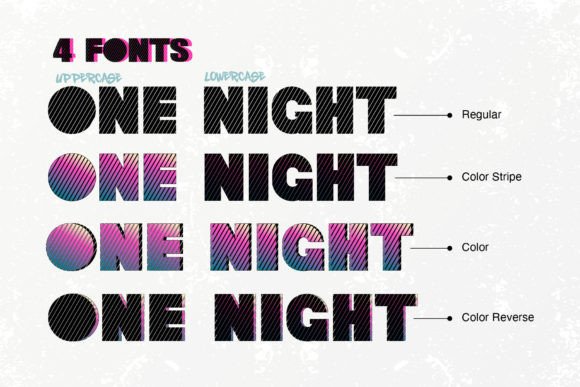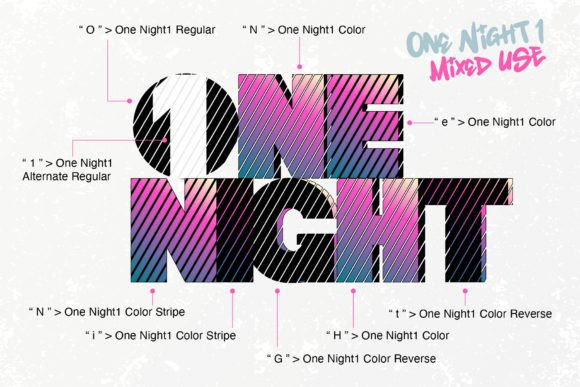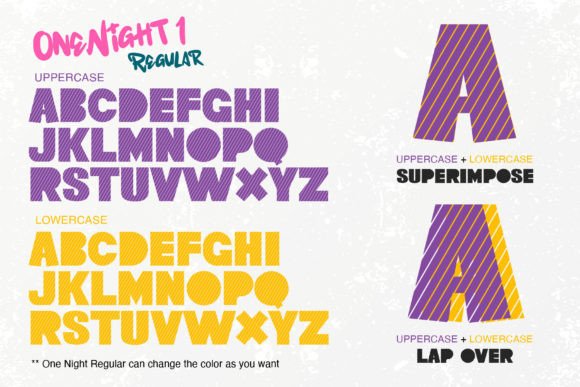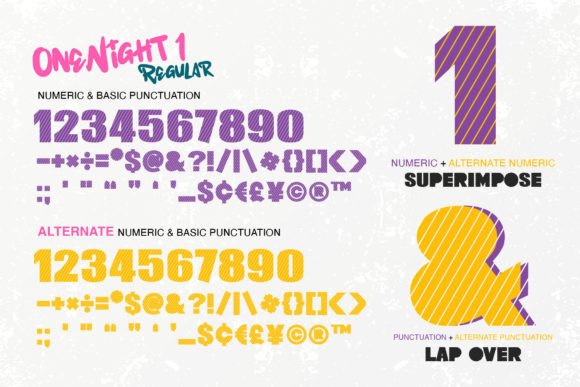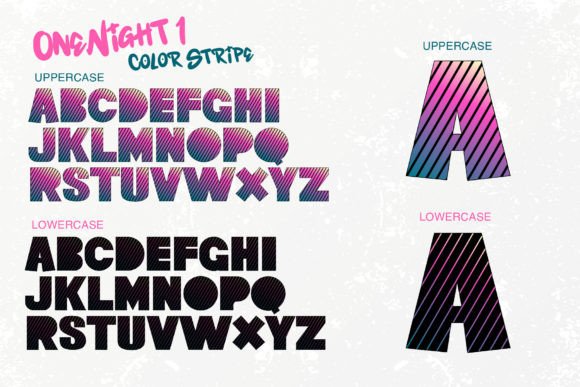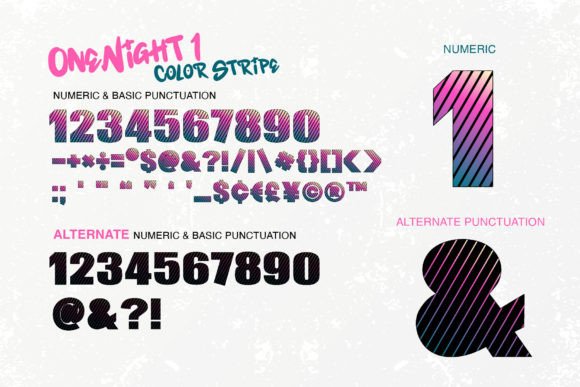
Introduction to One Night 1 Font
Have you ever found yourself up late at night, surrounded by scraps of paper, paint swatches, and half-finished design projects, and suddenly you’re struck with inspiration? That’s exactly what happened to us when we stumbled upon the One Night 1 Font. This stunning color and decorative font is a game-changer for designers, offering a unique retro vibe that’s perfect for creative projects.
With its versatility and high-quality design, the One Night 1 Font is an invaluable resource for any designer looking to add a touch of elegance and sophistication to their work. Whether you’re creating book covers, T-shirt designs, posters, or any other project that requires a retro flair, this font is sure to impress. In this article, we’ll delve into the details of the One Night 1 Font, including its compatibility with various design programs and cutting machines.
Key Features of One Night 1 Font
- Comes with a transparent background, allowing for easy customization and seamless integration into designs.
- Features a unique, modern design that is perfect for adding a touch of elegance to any creative project.
- Designed at a high resolution (300 DPI), ensuring crisp and clear text output in various sizes.
- Includes a range of font sizes, from small to large, making it suitable for various design applications, including signage, logos, and body text.
Honest Review: One Night 1 Font
As a designer, I’ve had the pleasure of working with a variety of fonts, but One Night 1 Font stands out from the rest. This font is a game-changer for any creative project that requires a bold and modern look.
What works well is the high quality design and the free download option, making it easily accessible to designers of all levels. The font is also versatile and can be used for a range of applications, from logos to headings.
Some of the standout features include:
- Transparent background, making it easy to customize and pair with other design elements
- High-quality design that is both modern and timeless
⚠️ One limitation of One Night 1 Font is that it may not be suitable for projects that require a more subtle or traditional font. However, for most creative projects, this font is a great choice.
Overall, I’m impressed with One Night 1 Font and would highly recommend it to any designer looking for a high-quality, modern font.
One Night 1 Font
Tips for Getting the Most Out of One Night 1 Font
Experiment with different font sizes and colors to create a visually appealing design. Combine One Night 1 Font with other design elements to add depth and interest to your project.
One Night 1 Font is perfect for creating eye-catching social media graphics, posters, and flyers. It’s also great for adding a unique touch to presentations, reports, and other business documents.